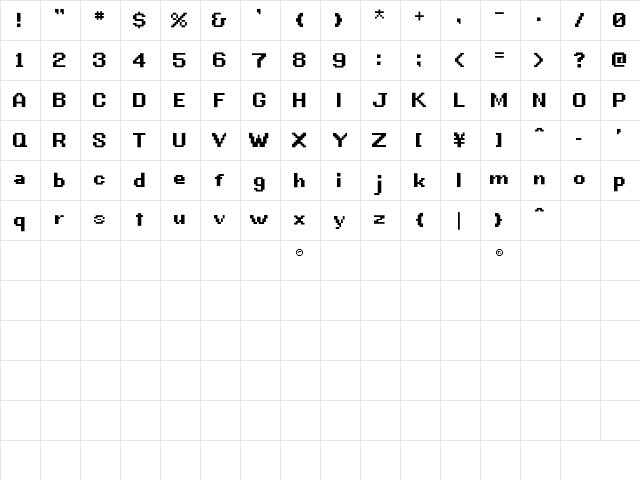
G.B.BOOT Regular
Design Context for G.B.BOOT
G.B.BOOT is a composed and adaptable typeface that performs quietly and consistently across a wide range of design contexts.
Pro Tip: Use G.B.BOOT in both headline and body roles to test its range before committing to a single application.